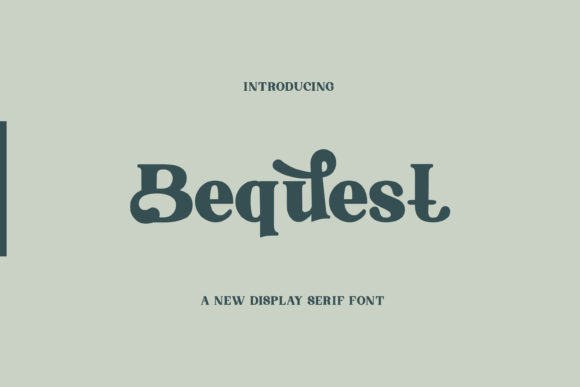
Introducing Bequest Font: The Ultimate Serif Font for Stunning Designs
Are you tired of using the same old fonts for your designs? Look no further! Bequest Font is here to revolutionize your typography with its thick, trendy, and incredibly versatile serif style. In this article, we’ll dive into the world of Bequest Font, exploring its features, benefits, and uses, and show you why it’s a must-have for designers and crafters alike.
What is Bequest Font?
Bequest Font is a modern serif font that boasts a thick, bold, and eye-catching design. Its unique style is perfect for creating stunning designs that demand attention. Whether you’re working on a logo, branding project, or marketing materials, Bequest Font is the perfect choice. Its versatility and flexibility make it suitable for a wide range of applications, from digital designs to print materials.
Key Features of Bequest Font
So, what makes Bequest Font so special? Here are some of its key features:
- Thick and trendy serif style: Bequest Font boasts a bold and modern design that’s perfect for creating eye-catching text
- Highly versatile: Suitable for a wide range of applications, from digital designs to print materials
- Easily readable: Despite its bold style, Bequest Font remains highly readable, even at smaller font sizes
Uses of Bequest Font
Bequest Font is perfect for a wide range of design projects, including:
- Logo design: Create stunning logos that demand attention with Bequest Font’s bold and modern style
- Branding and marketing materials: Use Bequest Font to create eye-catching business cards, brochures, and flyers that showcase your brand’s personality
- Digital designs: Add a touch of elegance and sophistication to your website, social media graphics, and email marketing campaigns
- Print materials: Use Bequest Font to create stunning print materials, such as posters, banners, and packaging designs
Tips for Using Bequest Font
To get the most out of Bequest Font, here are some tips to keep in mind:
- Experiment with different font sizes: Bequest Font remains highly readable even at smaller font sizes, so don’t be afraid to experiment with different sizes to find the perfect fit for your design
- Pair with other fonts: Bequest Font pairs well with a range of other fonts, so don’t be afraid to experiment with different combinations to find the perfect look for your project
| Font Name | Bequest Font |
| Author | Design Stag |
In conclusion, Bequest Font is a game-changer for designers and crafters looking to elevate their typography. Its thick, trendy, and incredibly versatile serif style, combined with PUA encoding, makes it the perfect choice for creating stunning designs. With its wide range of applications and ease of use, Bequest Font is a must-have for anyone looking to take their designs to the next level.